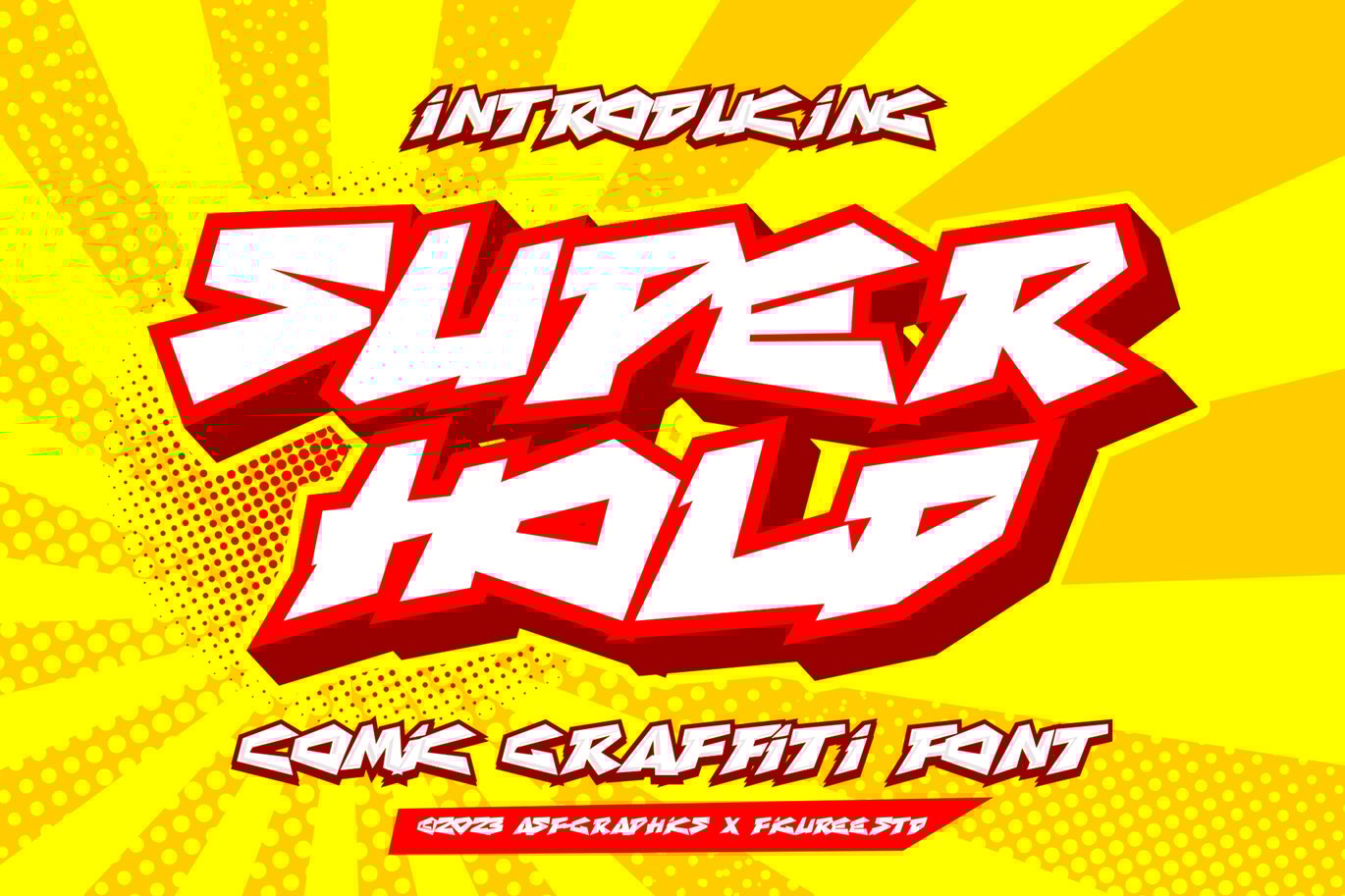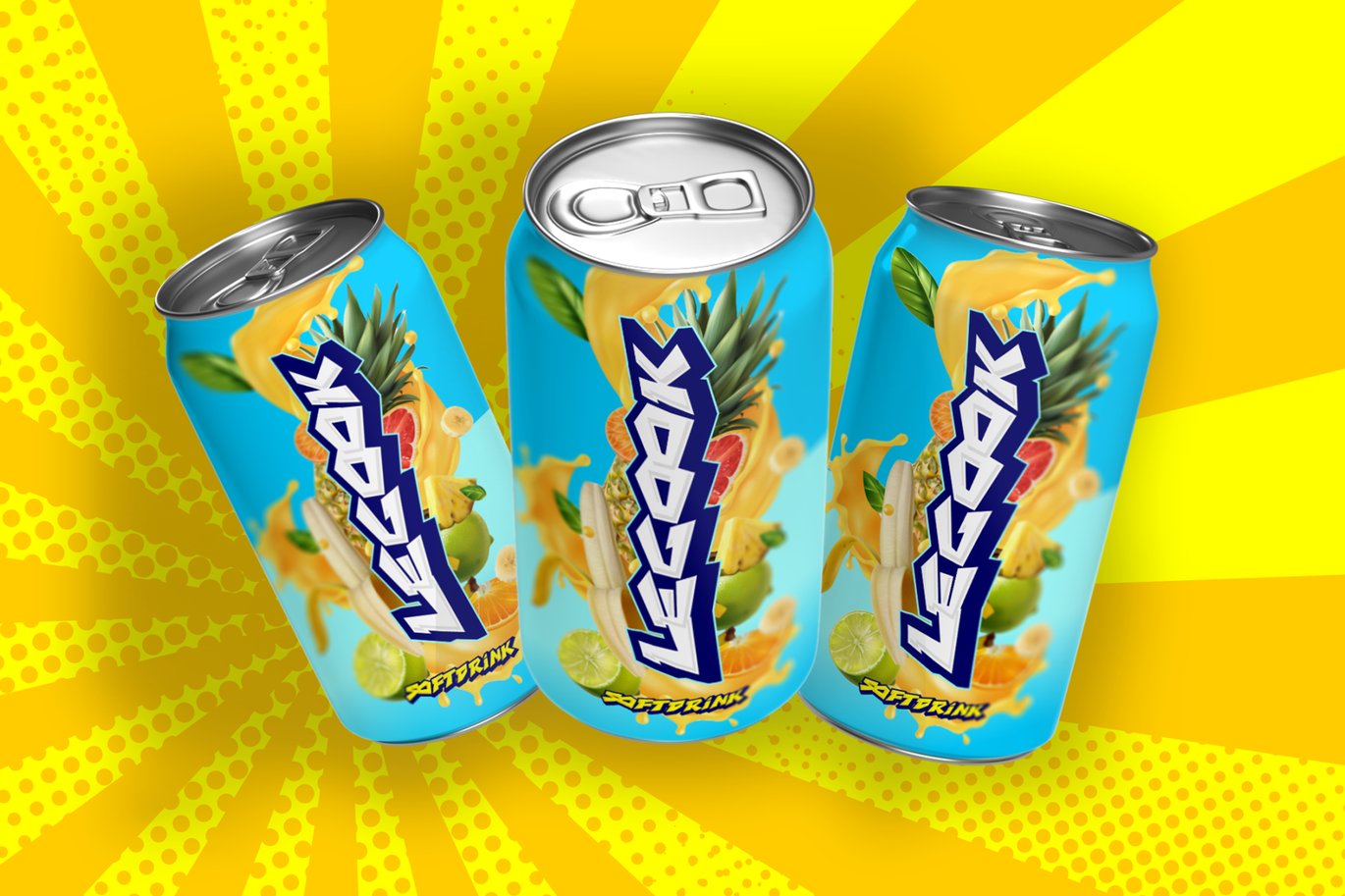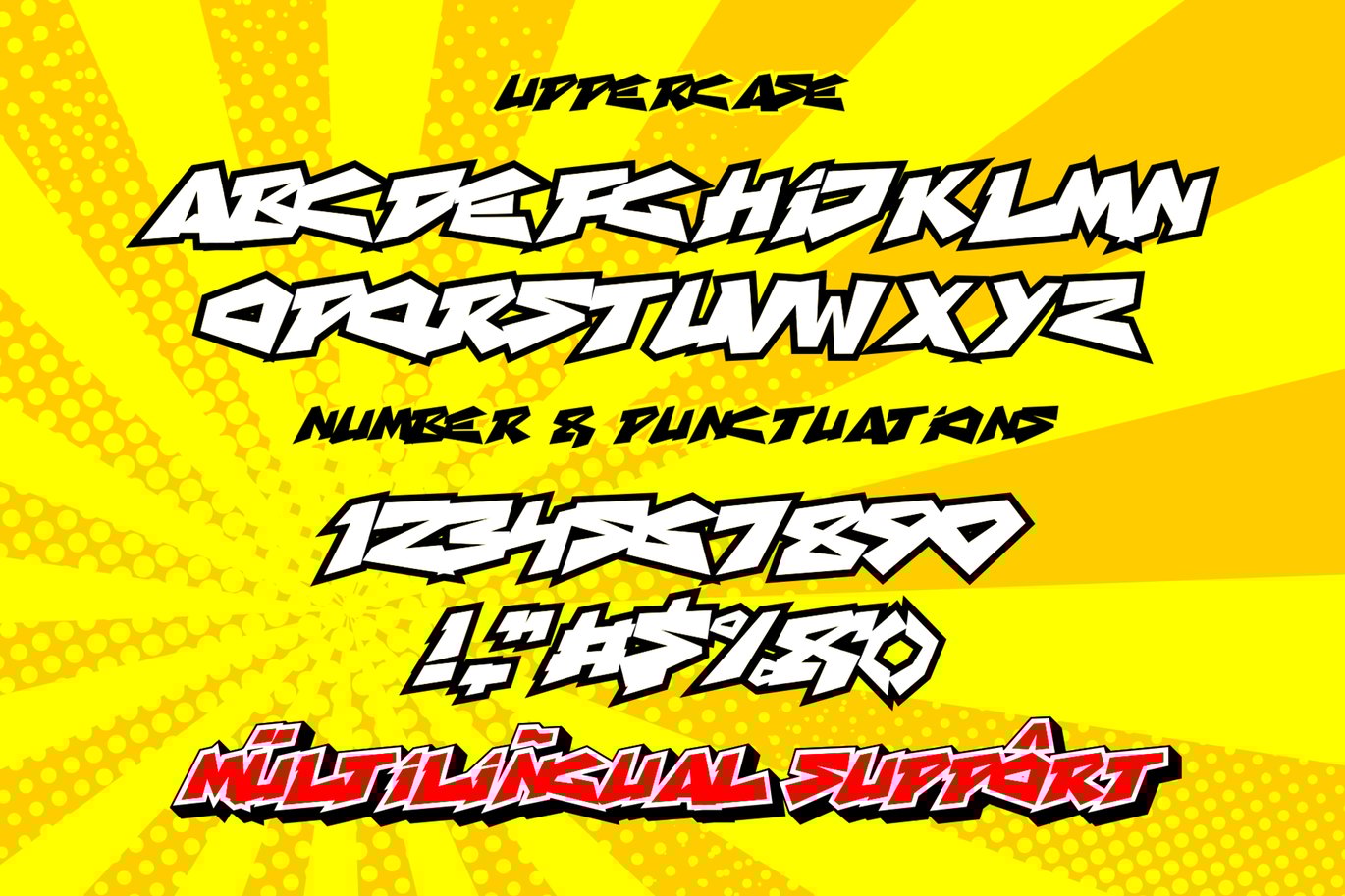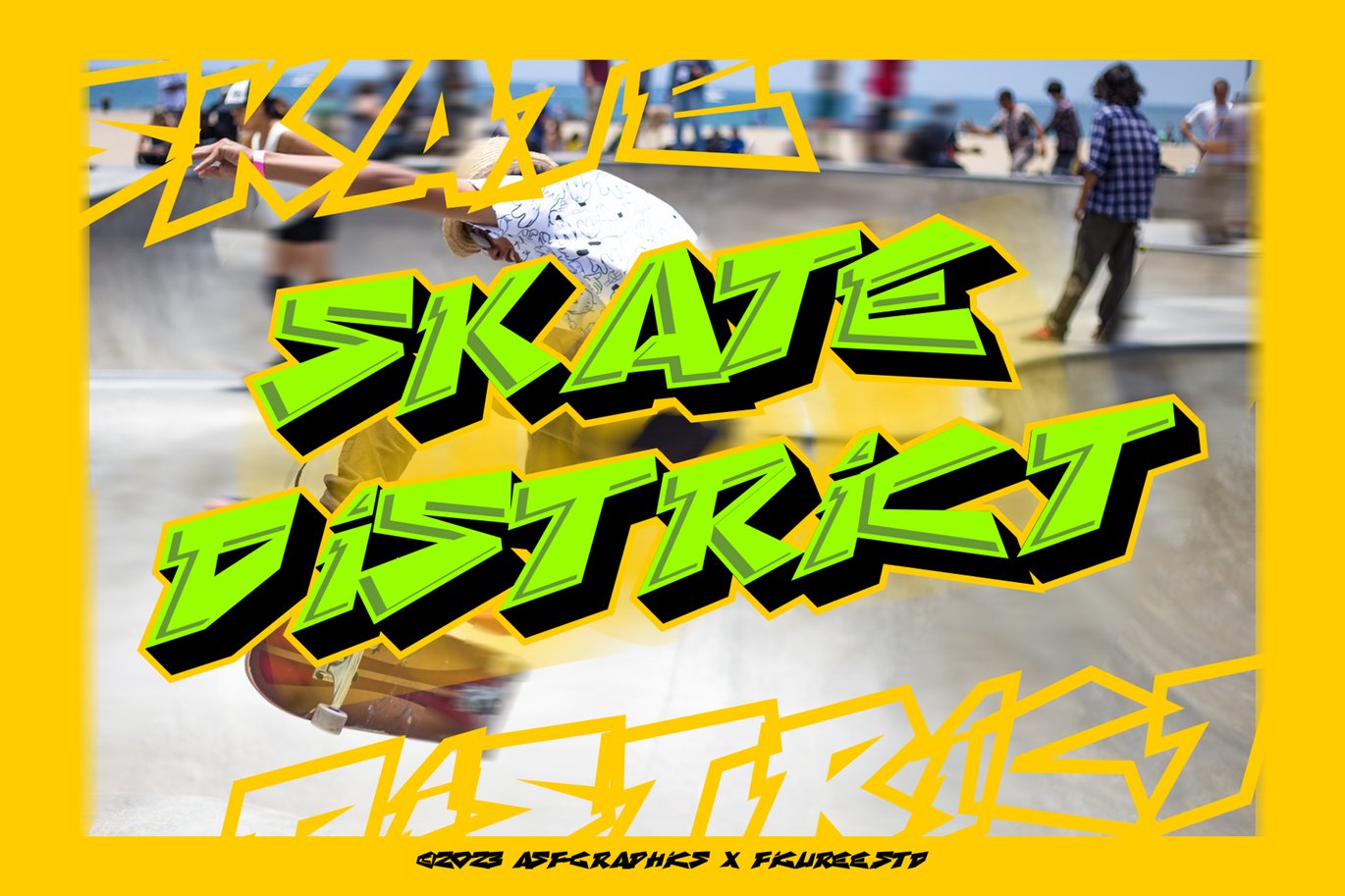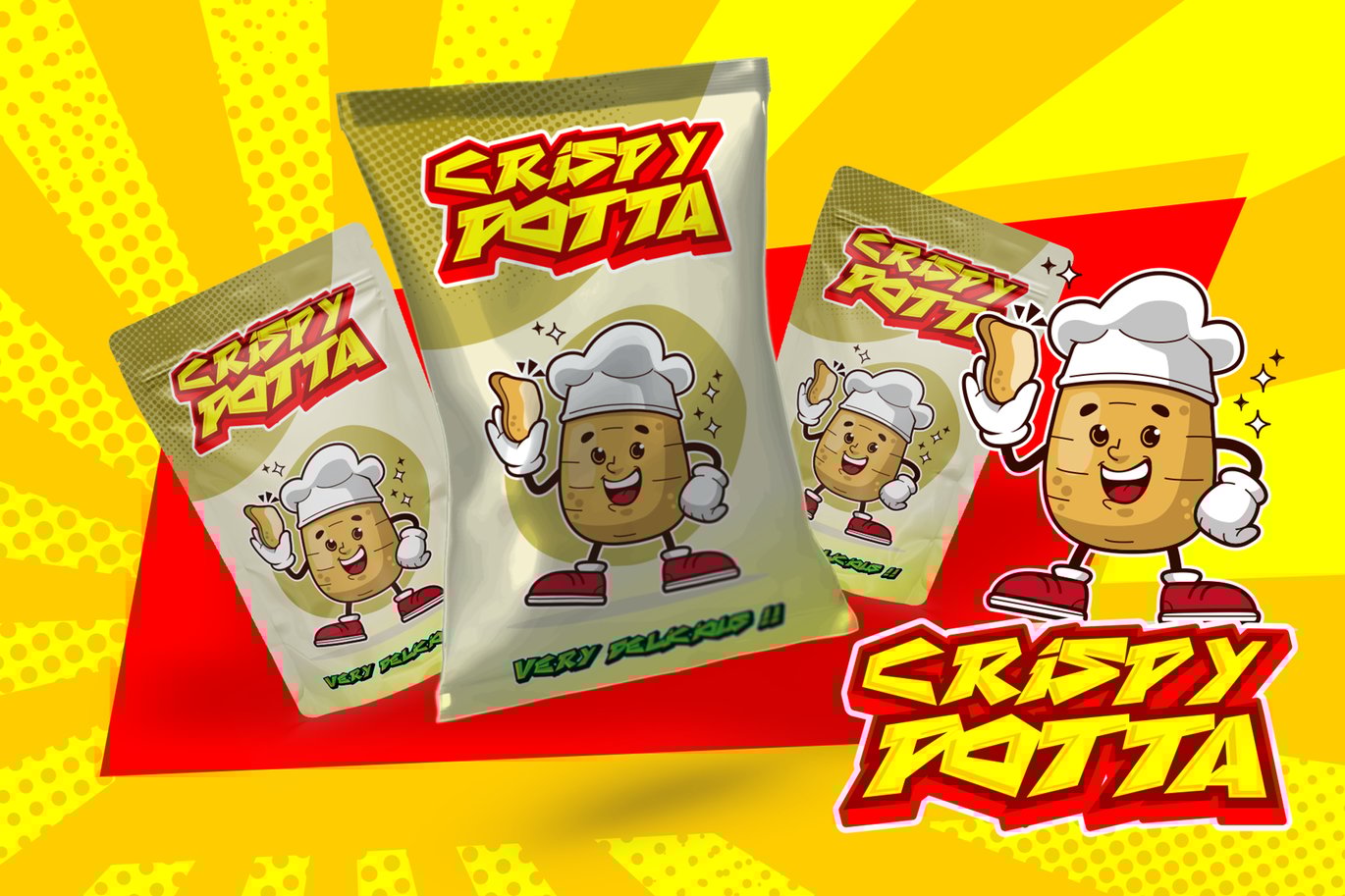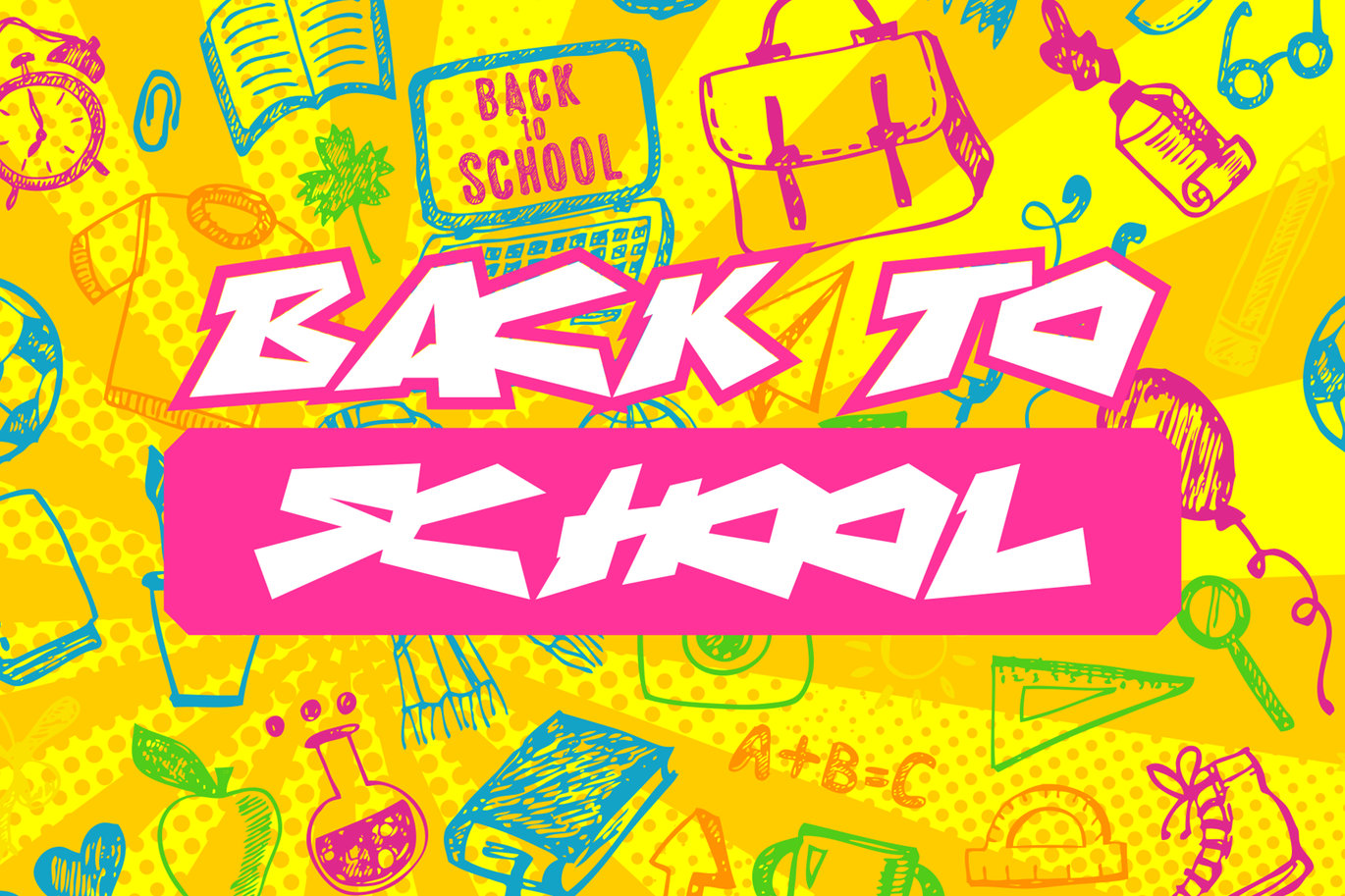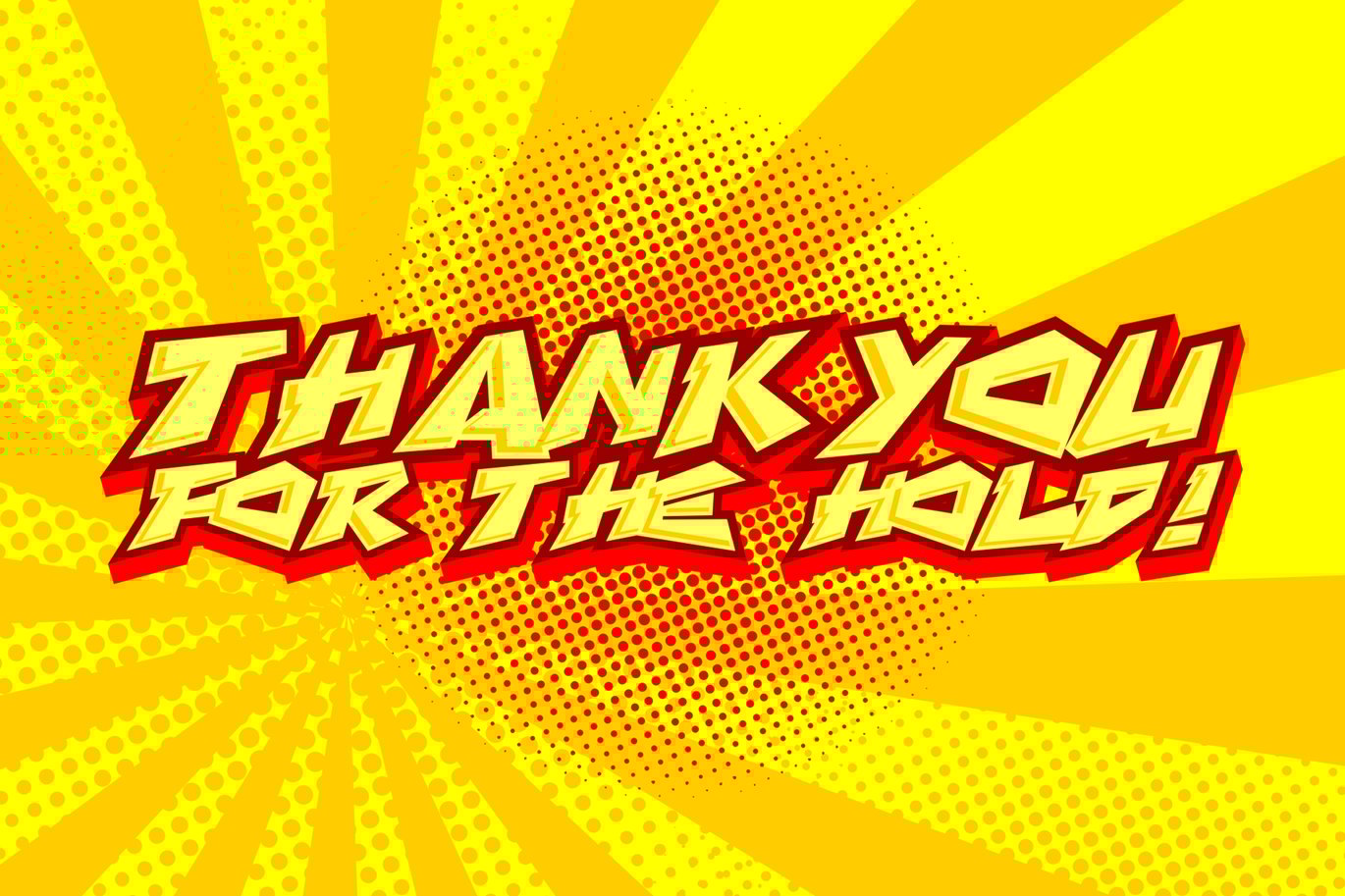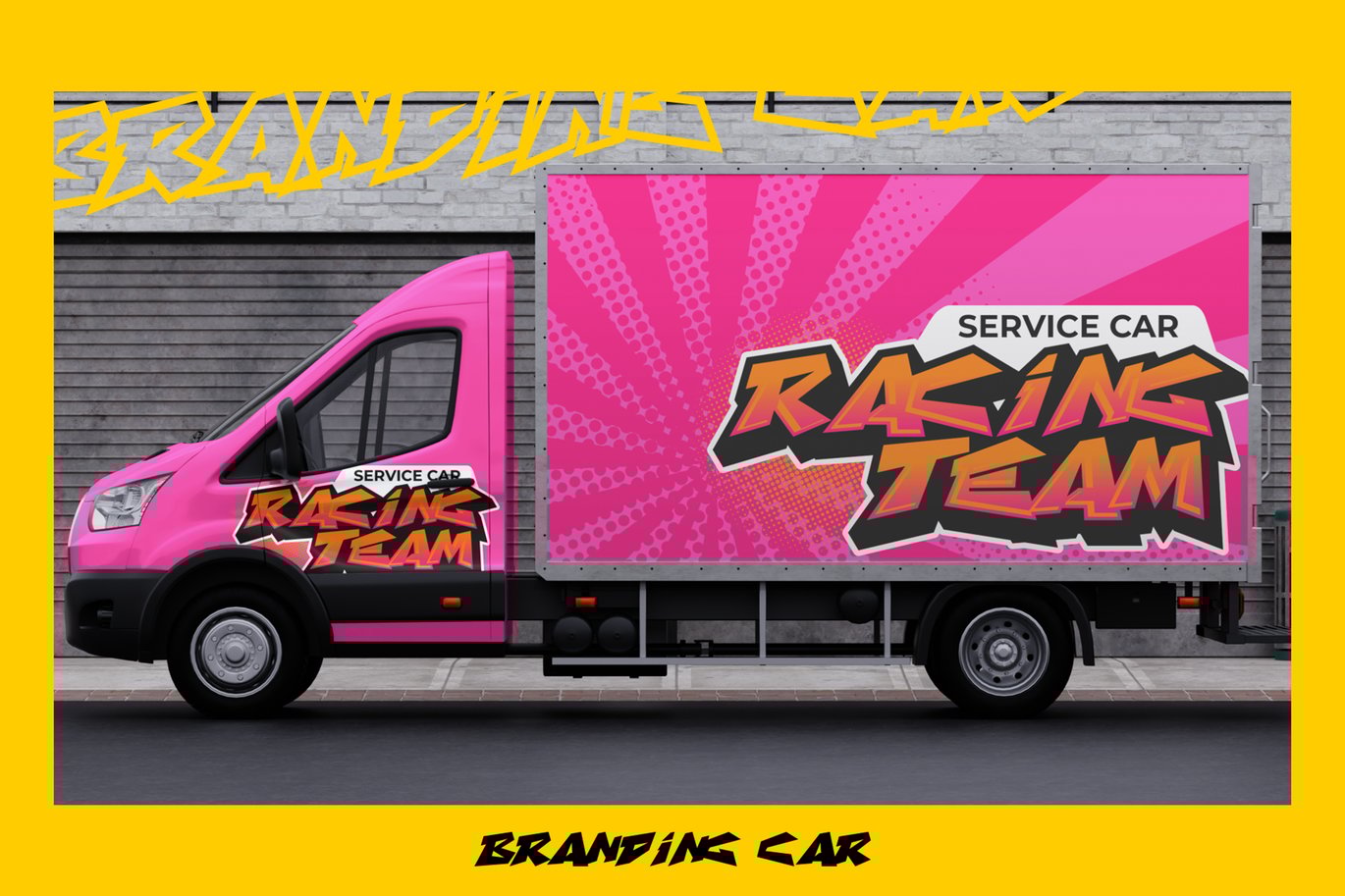
Superhold – Comic Graffiti Font
Unleash a burst of comic energy with Superhold, the graffiti font that fuses the dynamic flair of street art with the exuberance of comic book style. More than just a font, Superhold is a visual superhero, where each letter becomes a bold character ready to leap off the page and inject your designs with a powerful dose of graphic novel charm.
Crafted with the precision of a superhero landing, every stroke in Superhold tells a story of urban rebellion and playful creativity. Whether you’re designing for posters, comic-inspired merchandise, or any project that demands an edgy aesthetic, this font ensures your words become a visual adventure. Superhold isn’t just a font; it’s a visual superhero in the world of typography, turning your creations into a bold and impactful graphic novel. Elevate your designs with the dynamic and superheroic allure of Superhold – because, in the language of design, this font speaks with the power of a comic book explosion!